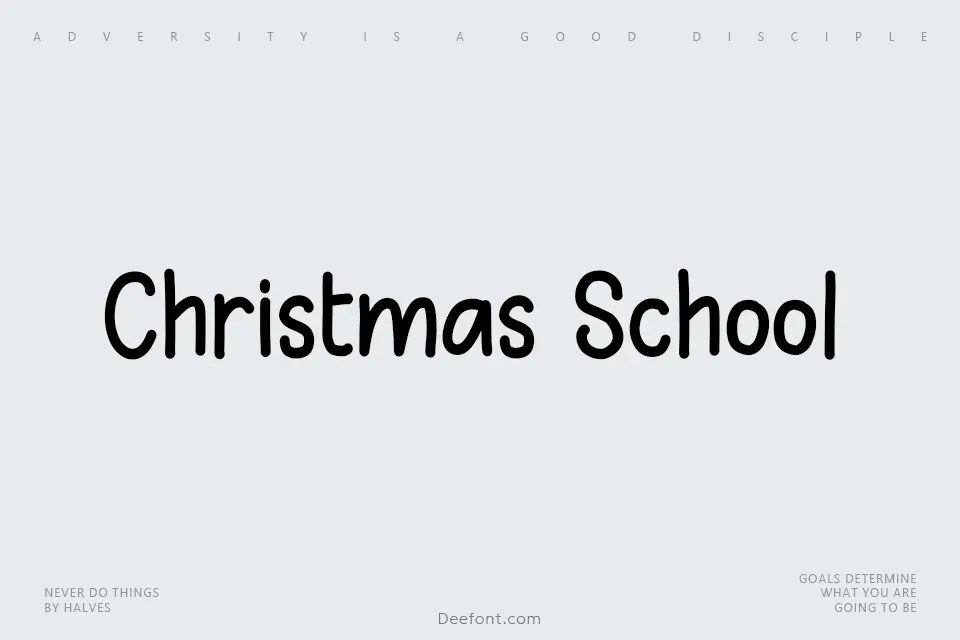
Christmas School Font
Christmas School Font is an enchanting handwritten display typeface that captures the warmth and nostalgia of holiday spirit. Designed by Letterafa Studio, this font features playful curves, whimsical strokes, and cheerful letterforms that evoke cozy winter moments and heartfelt festive messages. Its charming aesthetic makes it ideal for greeting cards, seasonal marketing campaigns, event invitations, holiday posters, and festive packaging projects. The font’s endearing appearance conjures images of handwritten notes exchanged during joyful celebrations, making it a perfect choice for designers seeking to add genuine holiday warmth to their creative work.